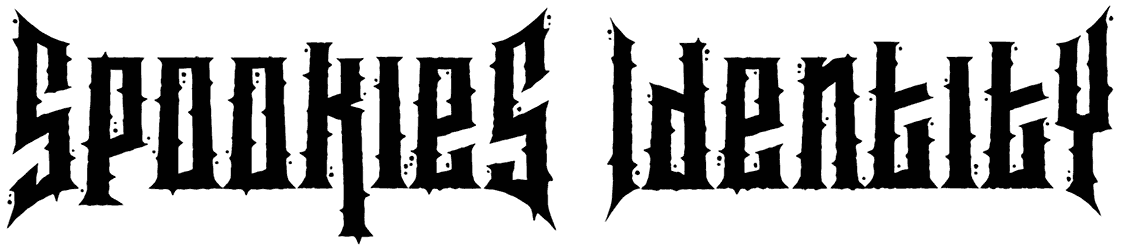
Spookies Identity Font
Spookies Identity is a death metal font with a creepy theme that can be seen with sharp blades on its edges. This font is not suitable for numbered projects, but it can look great in poster design, computer games, and horror movies.
So, if you need to design a multi-faceted work that conveys a sense of playfulness and excitement at the same time, start implementing your ideas with Spookies Identify right now.